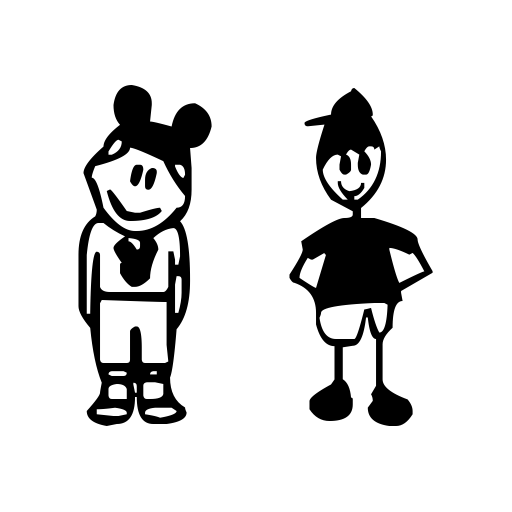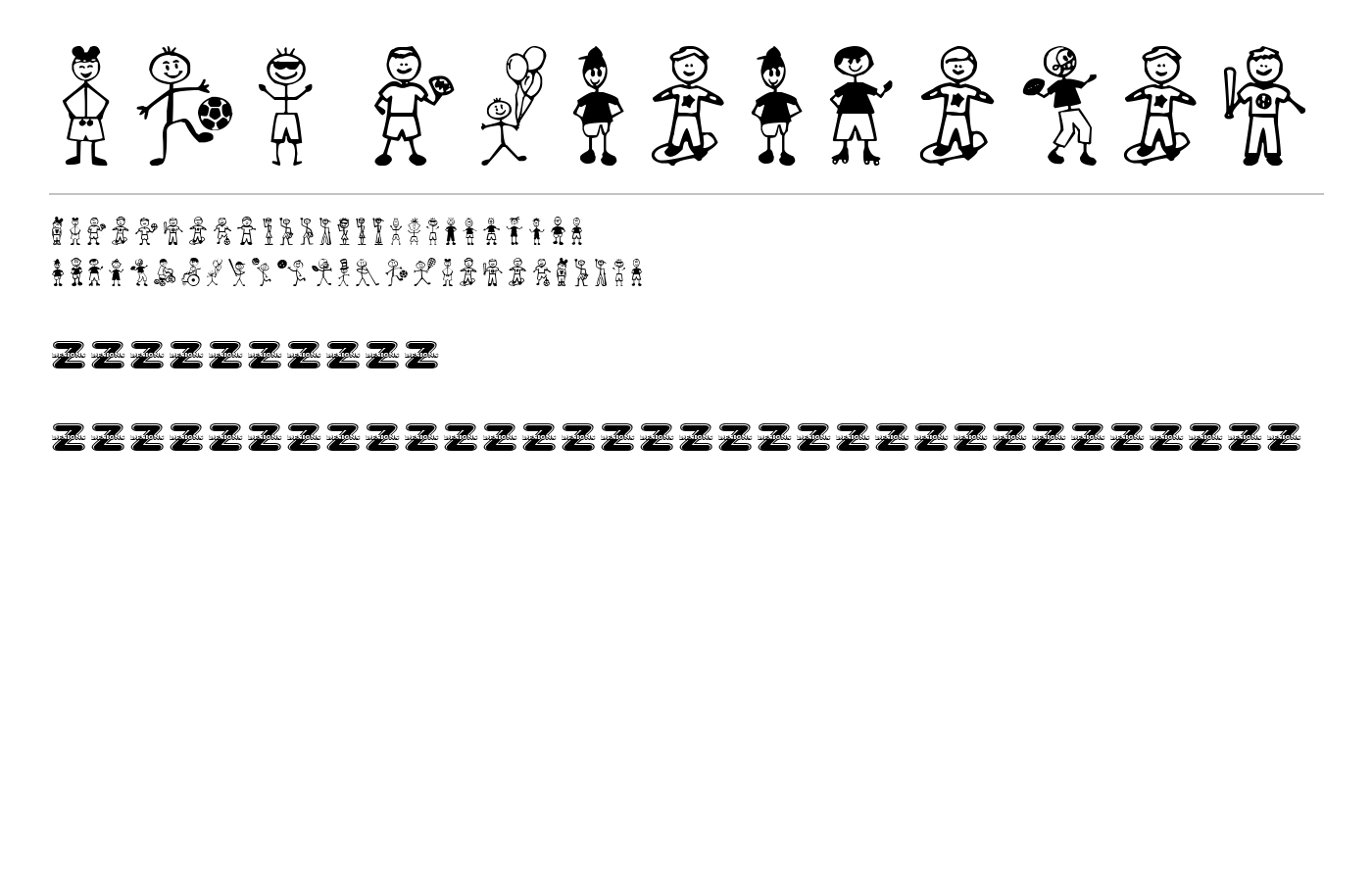
Boy Characters Font is a playful, illustrated typeface featuring a series of charming stick-figure boys engaged in various fun activities. Its whimsical, hand-drawn style makes it perfect for children's designs, educational projects, and casual, friendly branding that seeks to convey joy and lightheartedness. This font brings a unique, personal touch ideal for invitations, posters, and creative digital content aimed at a youthful audience.
Boy Characters Font
About Boy Characters Font